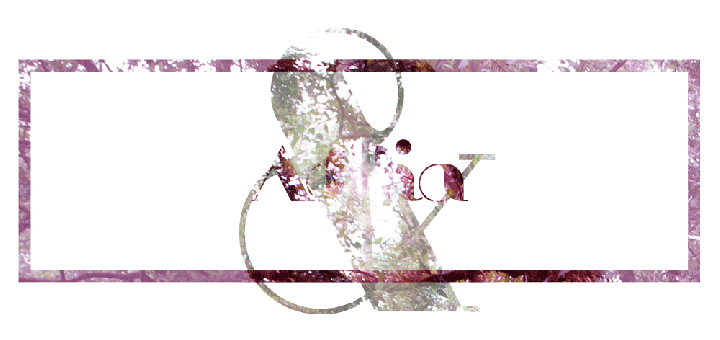
Adilia
Adilia it’s the firts type of a family which is under development. Dilia is modern, feminine and contrasted. It was inspired in the female form and it’s meant to be an elegant typography for branding and posters. It should not be used in very small size, than it will lose its readability